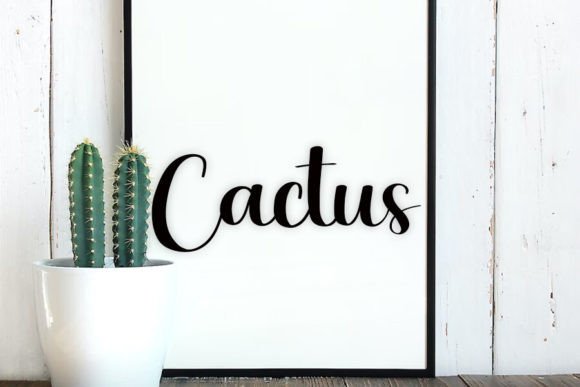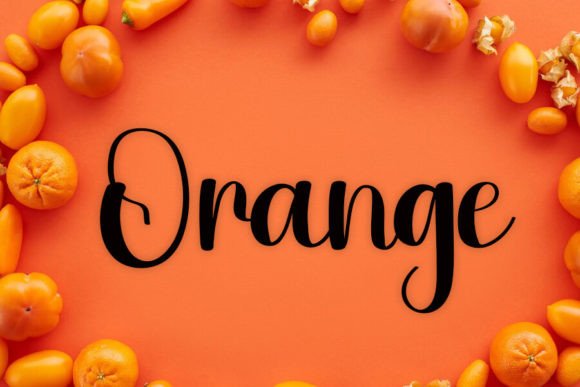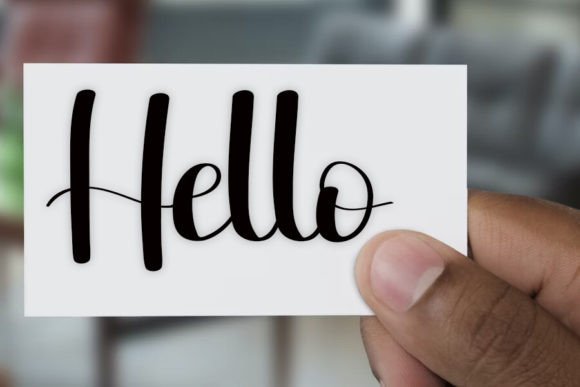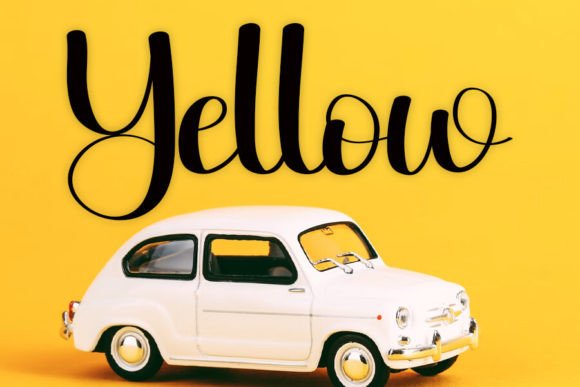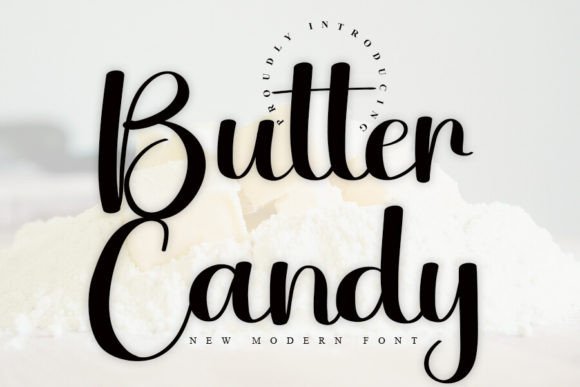
The Sweet Spot: Discovering the Elegance of Butter Candy Font
I’ll never forget the time I was working on a wedding invitation project, and my client asked for a font that was ” elegant, yet modern, and made them feel like royalty.” I scoured the internet, tried out dozens of fonts, but nothing seemed quite right. That was until I stumbled upon Butter Candy Font. ✨ It was love at first sight! With its flowing lines and beautiful rhythm, it was the perfect fit for the project. In this article, I’ll share with you why I’m obsessed with Butter Candy Font, its features, and how to make the most of it in your designs.
A Personal Review: What I Love About Butter Candy Font
So, what makes Butter Candy Font so special? Here are a few things that I absolutely love:
- ✨ Elegant and Modern: Butter Candy Font is a beautiful blend of traditional calligraphy and modern design. Its elegant lines and curves make it perfect for creating stunning compositions.
- ✅ Highly Versatile: Whether you’re working on branding projects, invitations, web graphics, or cards, Butter Candy Font is a great choice.
- 💫 Beautiful Rhythm: The font’s rhythm is smooth and flowing, making it a joy to work with.
While Butter Candy Font is an amazing font, there are a few things to keep in mind:
- ⚠️ Limited Use in Small Sizes: Like many script fonts, Butter Candy Font can be a bit tricky to read in small sizes. It’s best used in larger sizes, such as headings or titles.
- 🤔 Requires Some Practice: While the font is easy to use, mastering its OpenType features and glyphs may take some practice.
The Design Story Behind Butter Candy Font
Butter Candy Font was designed with the intention of creating a beautiful, modern calligraphic font that would inspire designers to create stunning compositions. The designer, inspired by traditional calligraphy and modern design trends, crafted a font that is both elegant and versatile.
| Font Name | Butter Candy Font |
| Author | ABBAsalam |
| What is Butter Candy Font? | Butter Candy Font is a modern calligraphic font designed for creating elegant and classy compositions. |
| Can I use Butter Candy Font for my branding project? | Absolutely! Butter Candy Font is perfect for branding projects that require a touch of elegance and sophistication. |
| Is Butter Candy Font easy to use? | Yes, Butter Candy Font is relatively easy to use. However, mastering its OpenType features and glyphs may take some practice. |